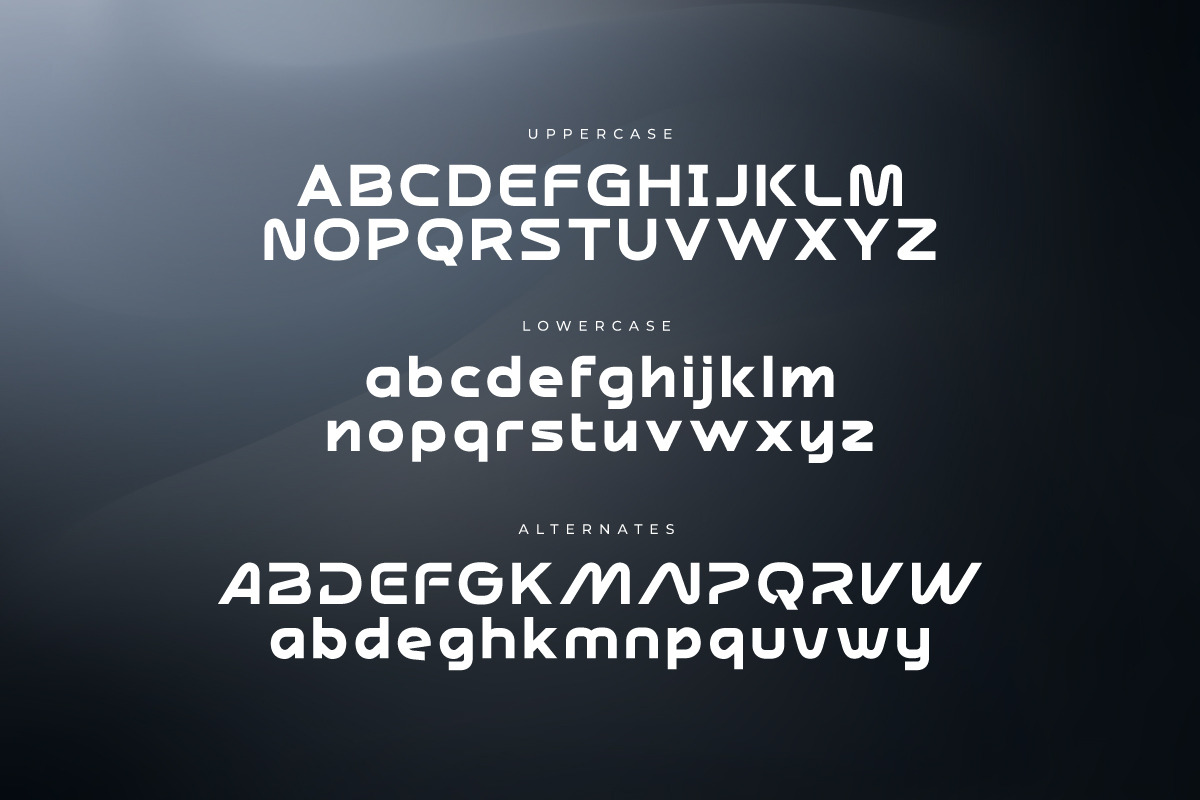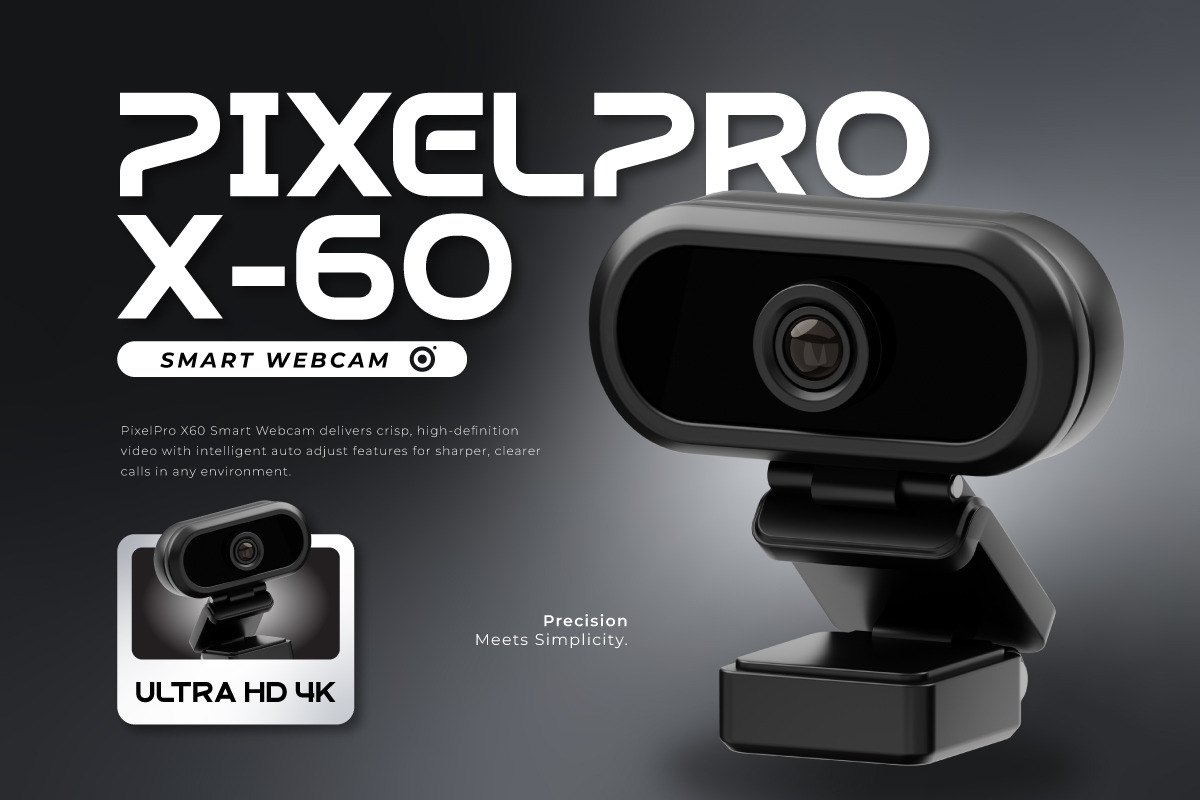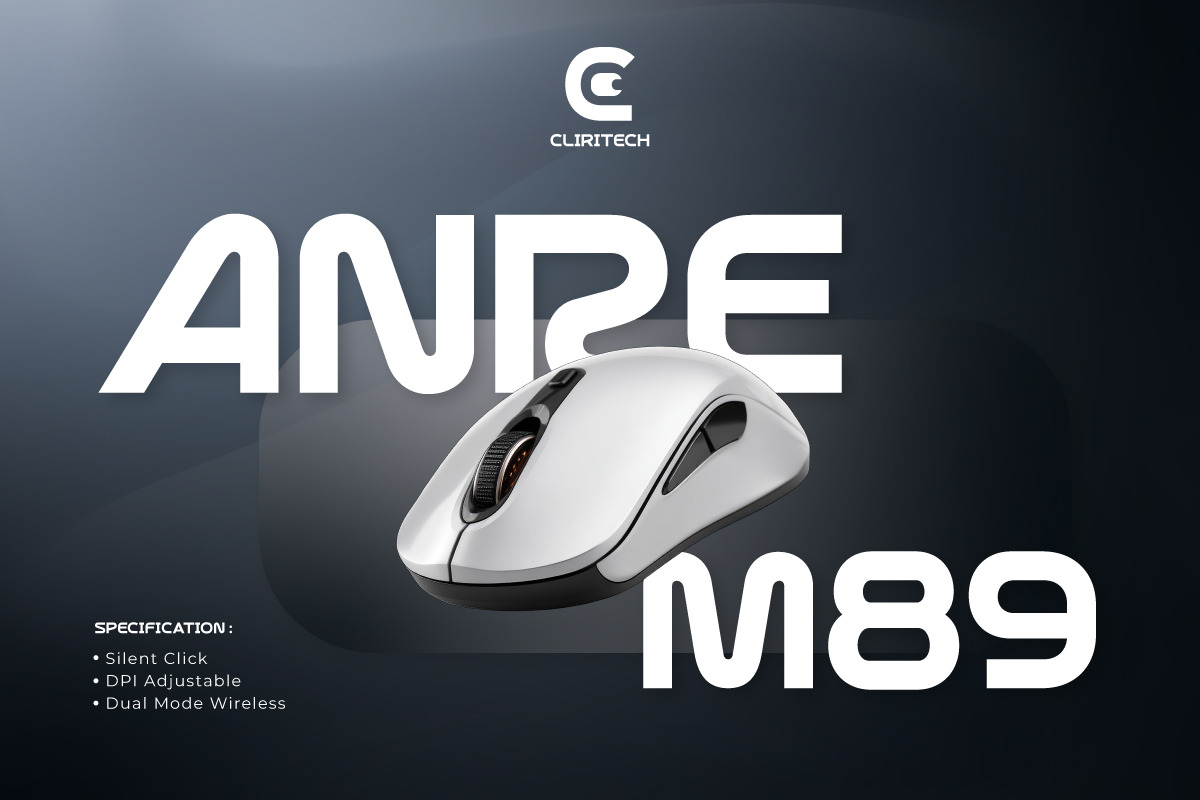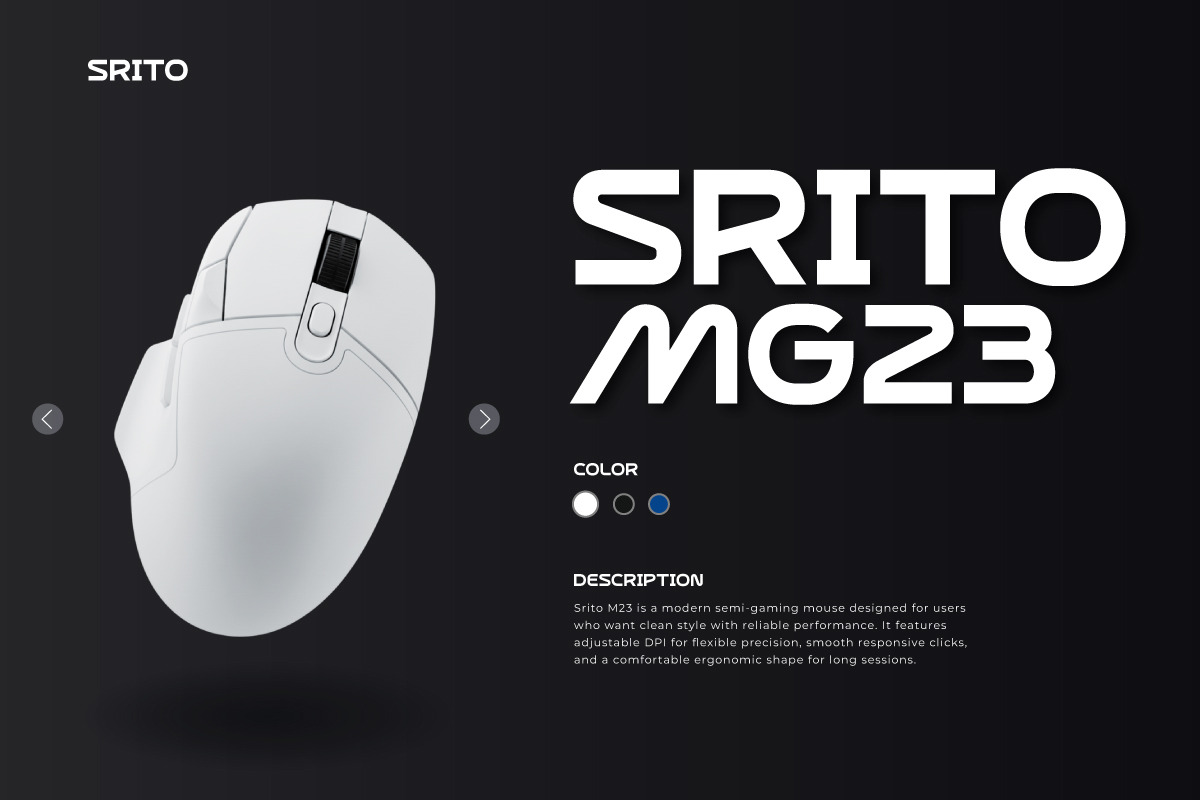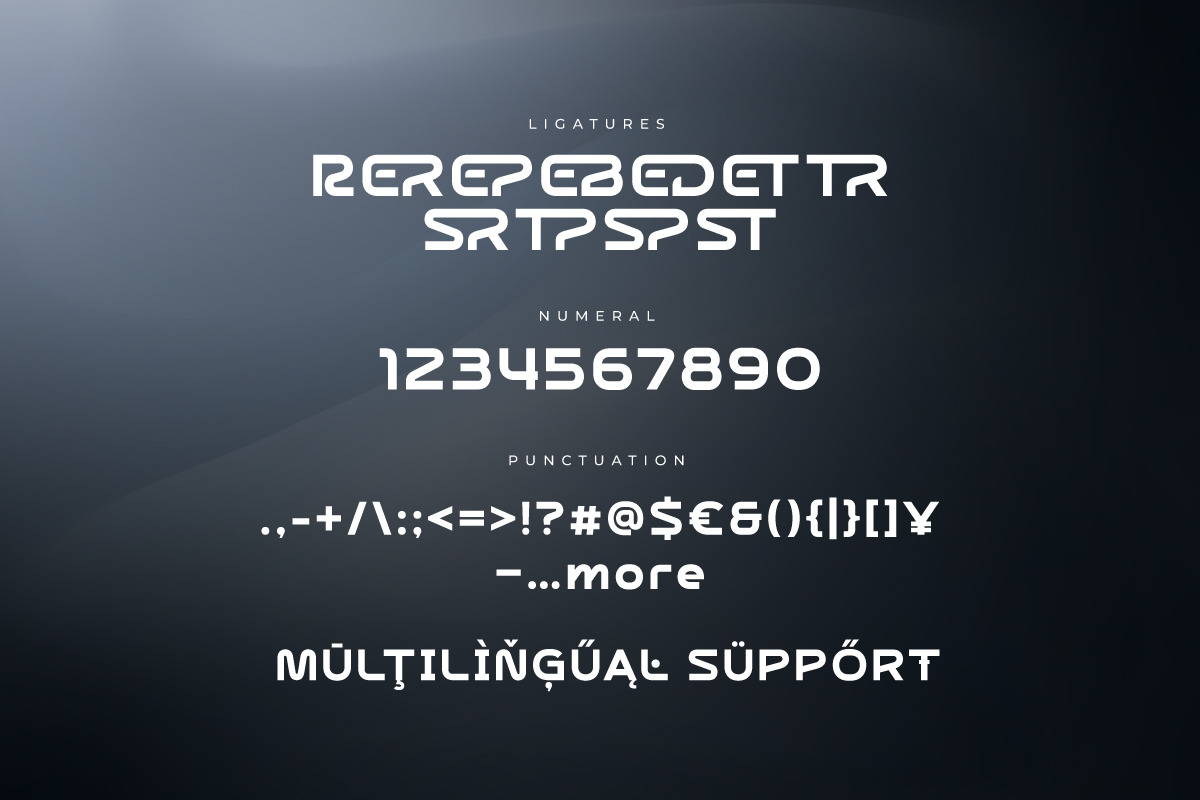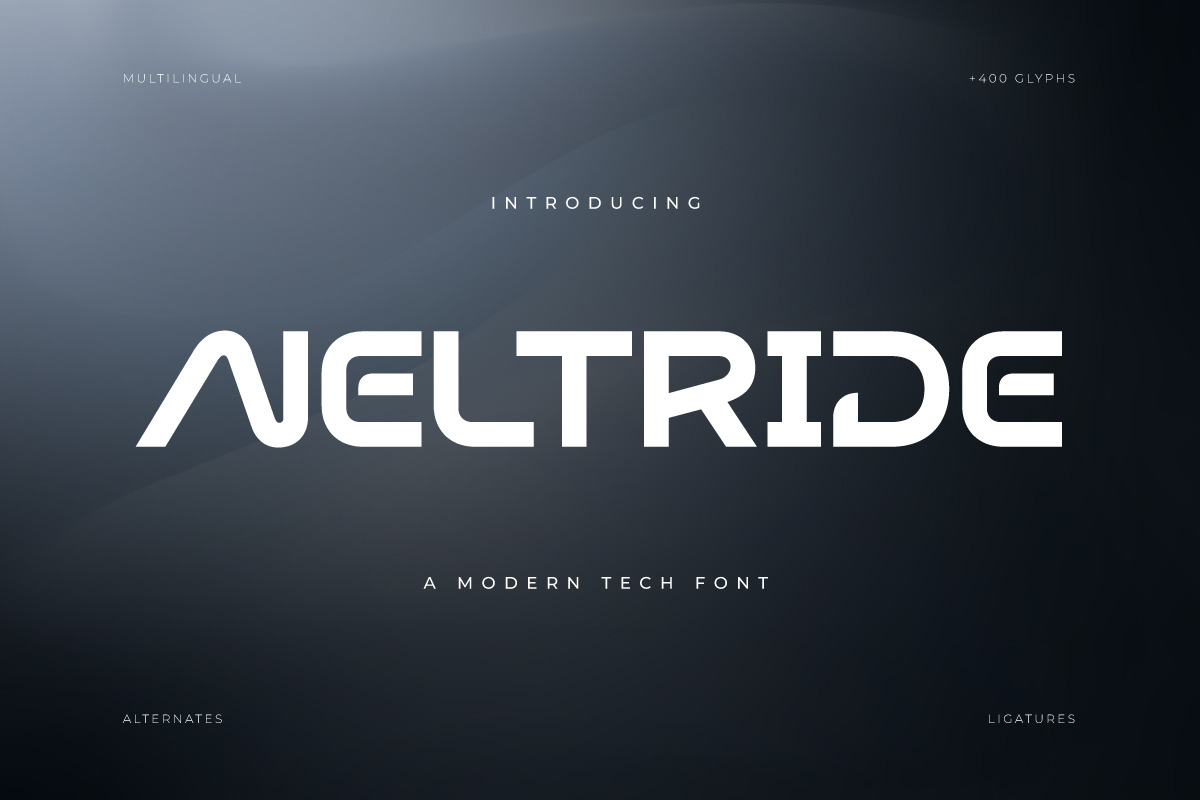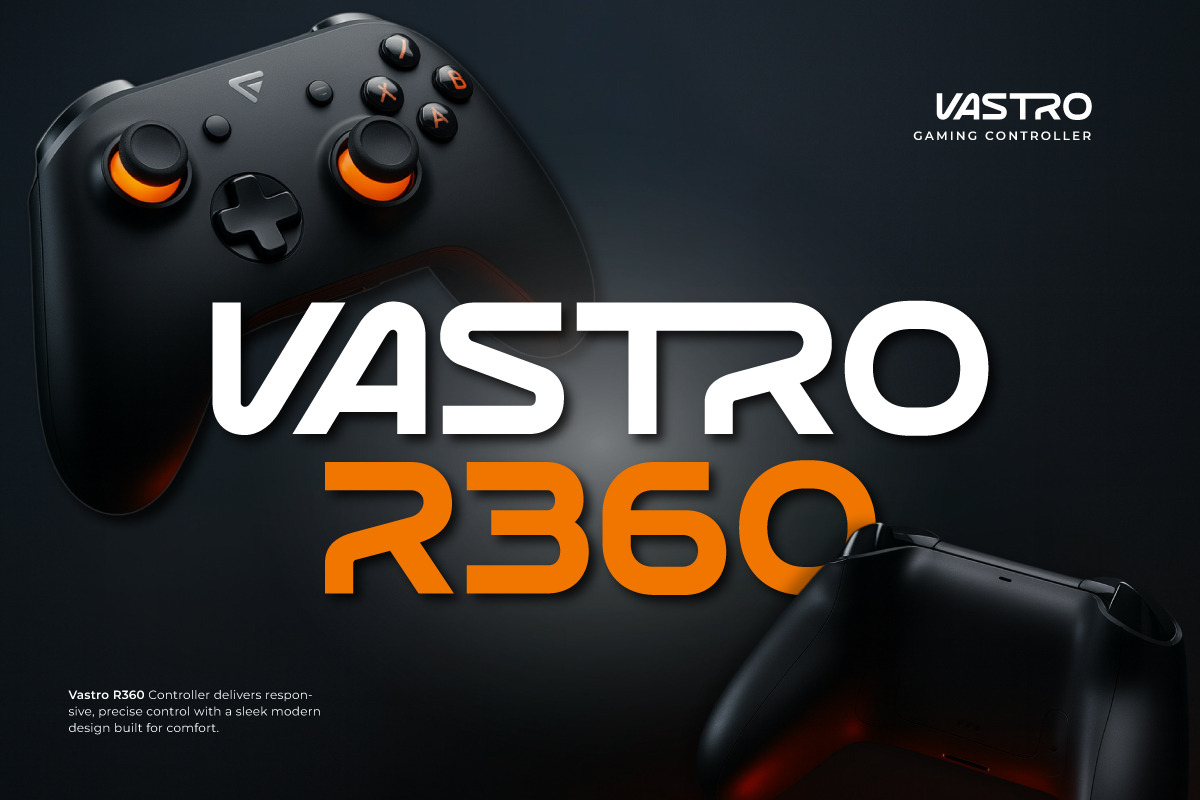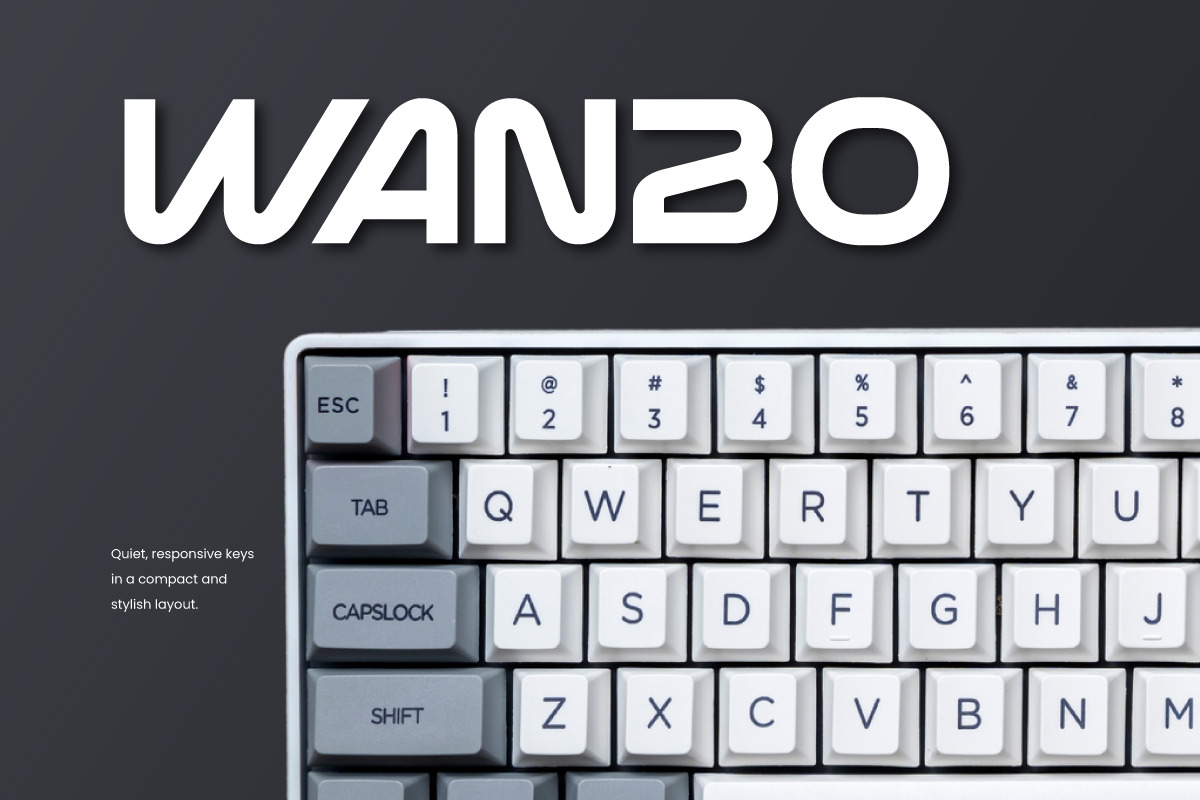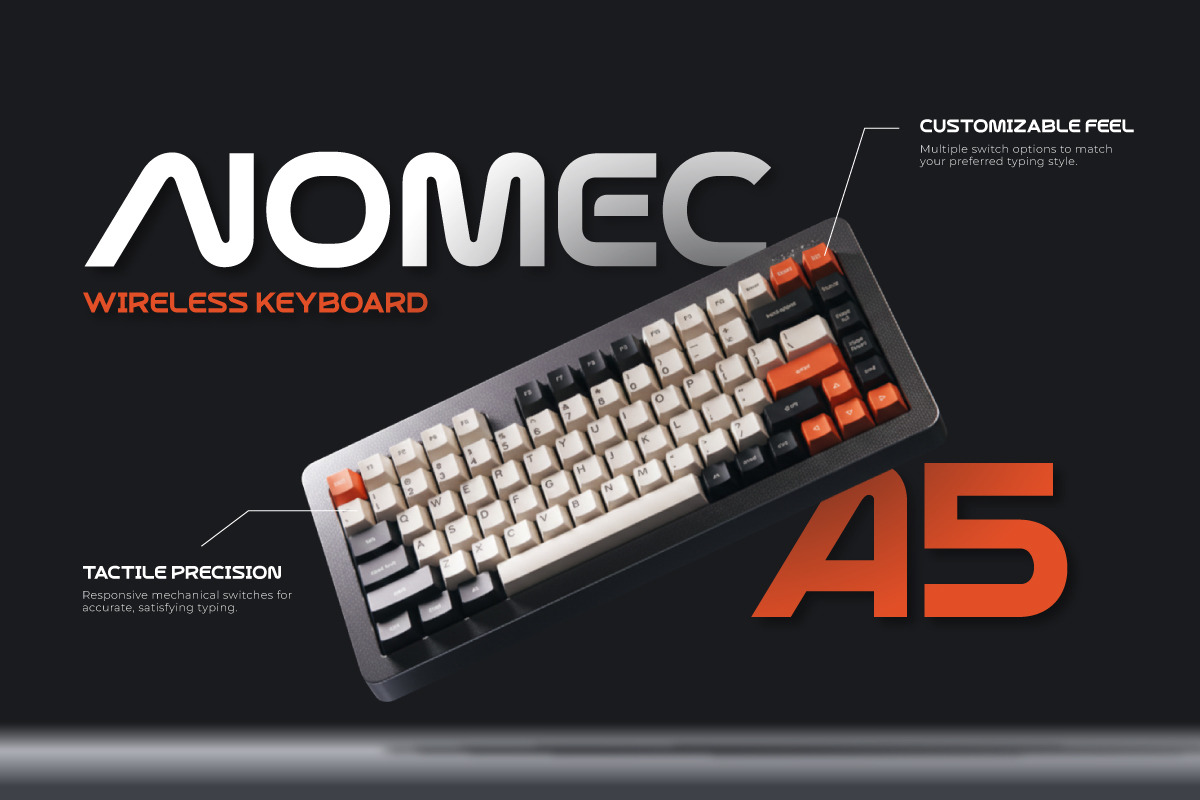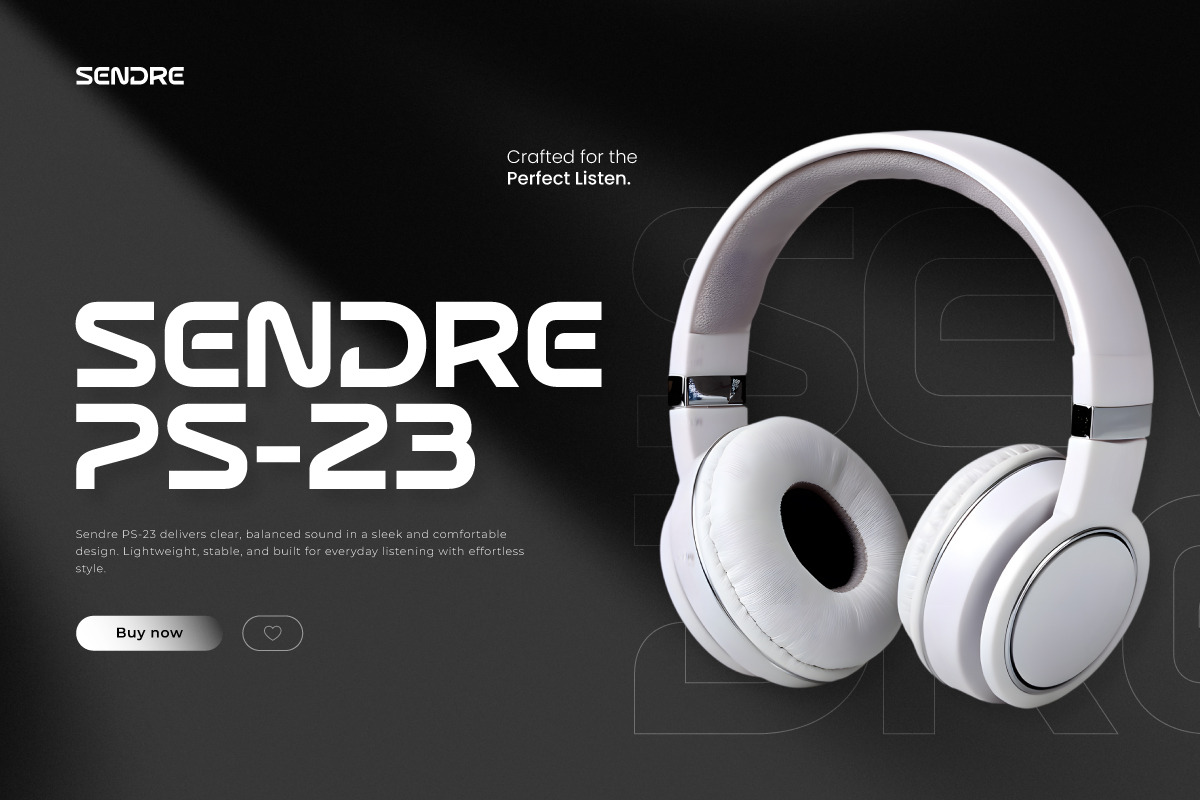
Neltride - Modern Tech Font
Neltride delivers a powerful and modern logotype character, engineered for corporate design, tech branding, and digital visual dominance. With strong structured letterforms, Neltride injects reliability and authoritative energy into every composition.
Built for striking headlines and posters, this typeface carries a futuristic, clean aesthetic, ideal for apps, web interfaces, tech campaigns, and game visuals driven by a forward-thinking identity.
A bold modern scfi attitude with electronic future appeal, perfect for cinematic titles, techno-driven logotypes, and next-gen digital branding. Its modern character ensures your visuals look strong, confident, and digitally iconic.
- Multilingual Support: Fully supports 85+ languages, including: Afrikaans, Albanian, Asu, Basque, Bemba, Bena, Breton, Catalan, Chiga, Cornish, Croatian, Czech, Danish, Dutch, Embu, English, Esperanto, Estonian, Filipino, Finnish, French, Friulian, Galician, Gusii, Hungarian, Indonesian, Irish, Italian, Kabuverdianu, Kalenjin, Kamba, Kikuyu, Kinyarwanda, Latvian, Lithuanian, Lower Sorbian, Luo, Luxembourgish, Luyia, Machame, Makhuwa-Meetto, Makonde, Malagasy, Maltese, Manx, Meru, Morisyen, North Ndebele, Norwegian Bokmål, Norwegian Nynorsk, Nyankole, Oromo, Polish, Portuguese, Quechua, Romanian, Romansh, Rombo, Rundi, Rwa, Samburu, Sango, Sangu, Scottish Gaelic, Sena, Serbian, Shambala, Shona, Slovak, Slovenian, Soga, Somali, Spanish, Swahili, Swedish, Swiss German, Taita, Teso, Turkish, Upper Sorbian, Uzbek (Latin), Volapük, Vunjo, Walser, Zulu.